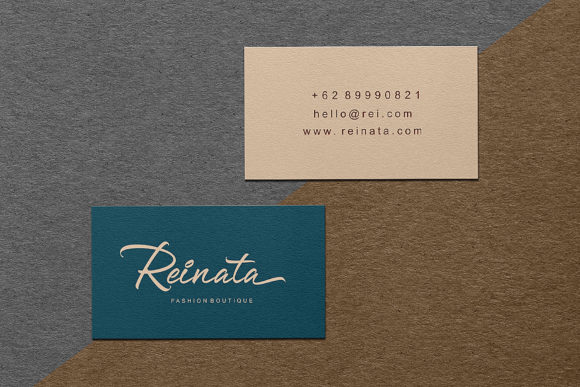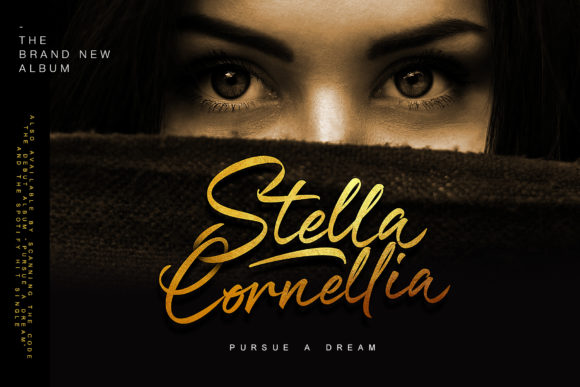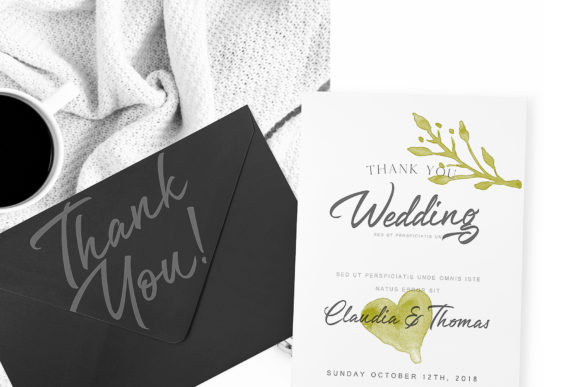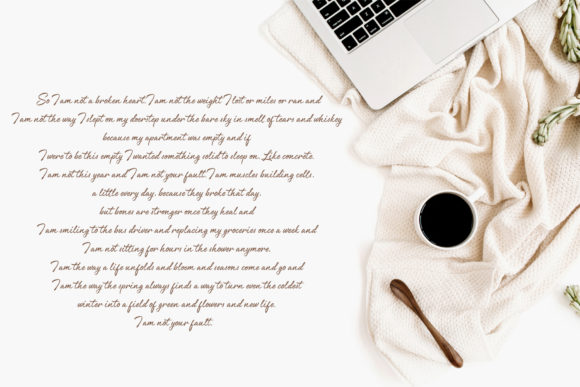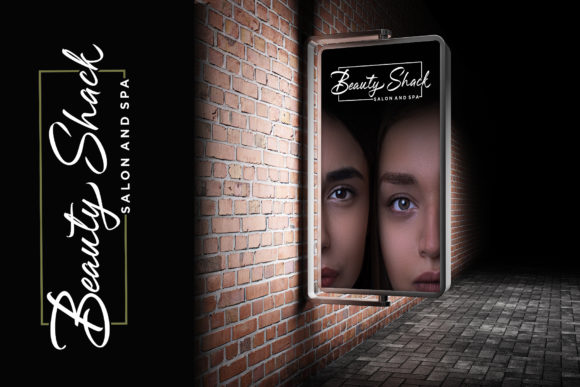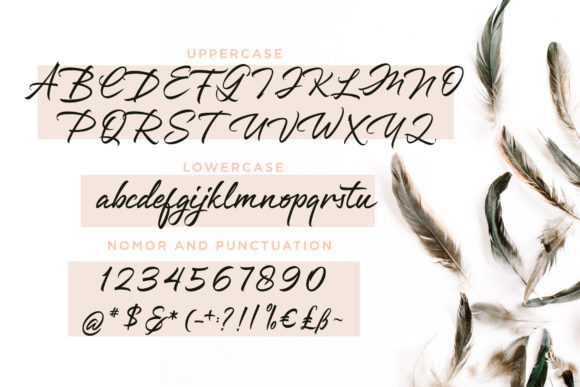
The Greatfella Font: Elevate Your Designs with a Personal Touch
Have you ever been in the middle of a design project, and suddenly, you’re stuck on finding the perfect font? I recall a particularly frustrating experience while working on a wedding invitation design. My client wanted a script that exuded elegance and sophistication, but also had a personal, handwritten feel. After hours of searching, I stumbled upon the Greatfella font, and it was love at first sight! 😍
Greatfella is a stunning script with a smart feel, perfect for adding a personal touch to any design project. In this article, we’ll dive into the world of Greatfella, exploring its features, and how to make the most of this beautiful font.
An Honest Review of Greatfella
What I Love About Greatfella ✨
- 💫 Elegant and sophisticated, yet approachable and personal
- 🎨 Versatile and adaptable to various design styles and projects
- 🔍 OpenType features, including glyphs and stylistic alternates, offer endless creative possibilities
- ⚠️ Some users may find the font a bit too ‘connected’ for certain design applications
- ⚠️ Limited availability of condensed or italic versions, which might limit its use in certain projects
The Story Behind Greatfella
While the origins of Greatfella might be shrouded in mystery, it’s clear that this font was crafted with love and attention to detail. Imagine a designer, fueled by passion and creativity, carefully crafting each letterform to evoke a sense of sophistication and elegance. 💫
Q: What makes Greatfella suitable for designs that require a personal touch?
A: Greatfella’s elegant and sophisticated feel, combined with its approachable and personal vibe, make it an excellent choice for designs that require a human touch.
Q: Is Greatfella suitable for body text?
A: While Greatfella is highly legible, it’s primarily designed for display and headline use. For body text, consider using a more traditional serif or sans-serif font.